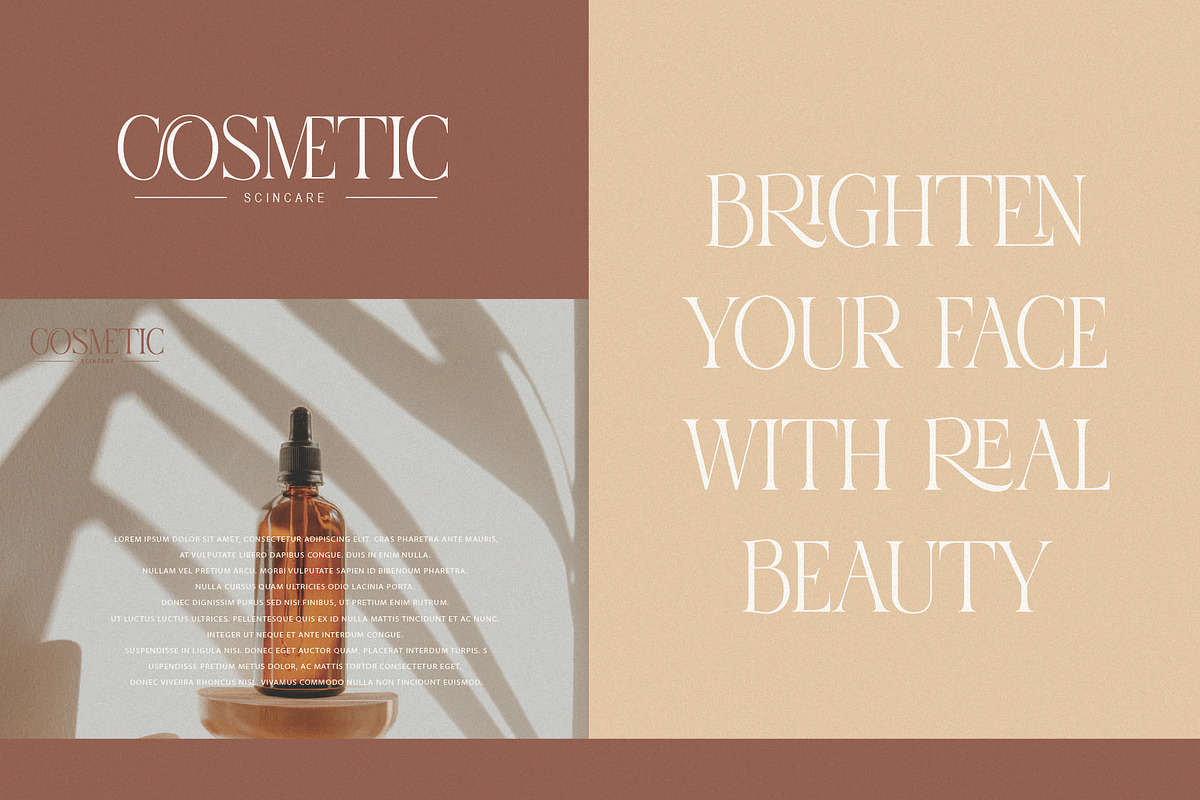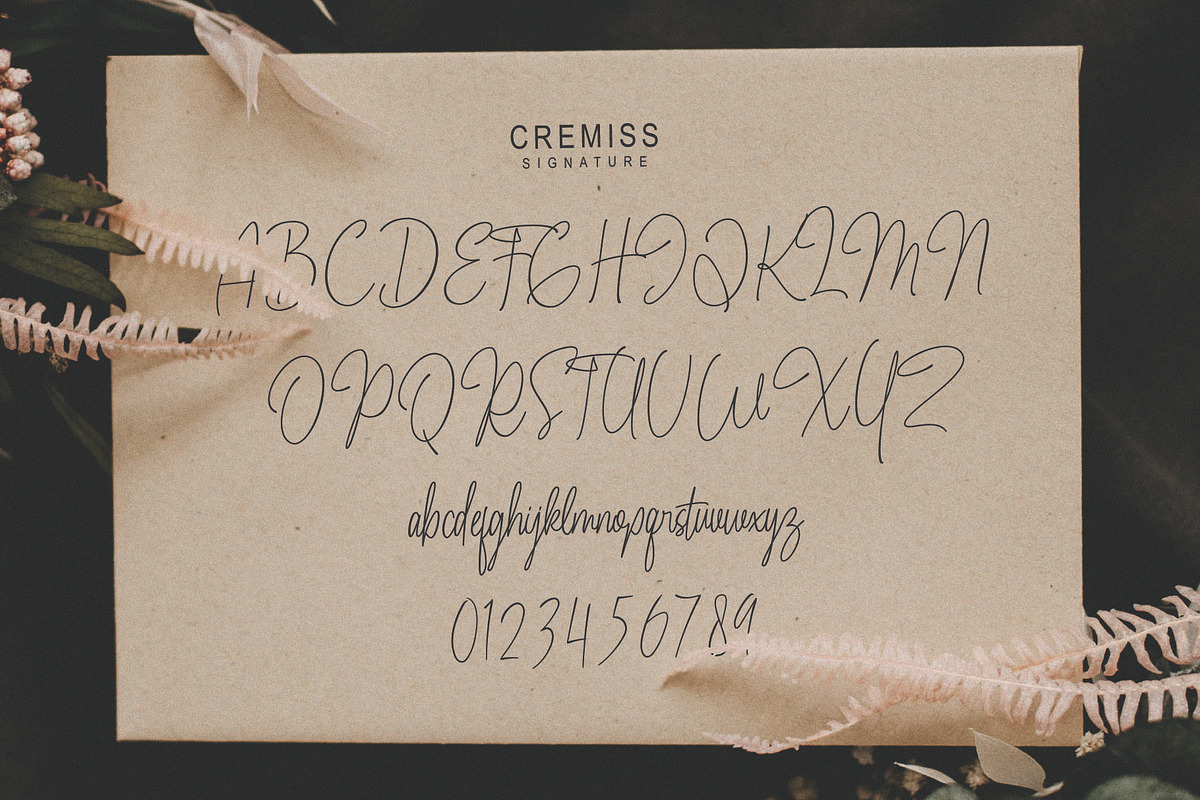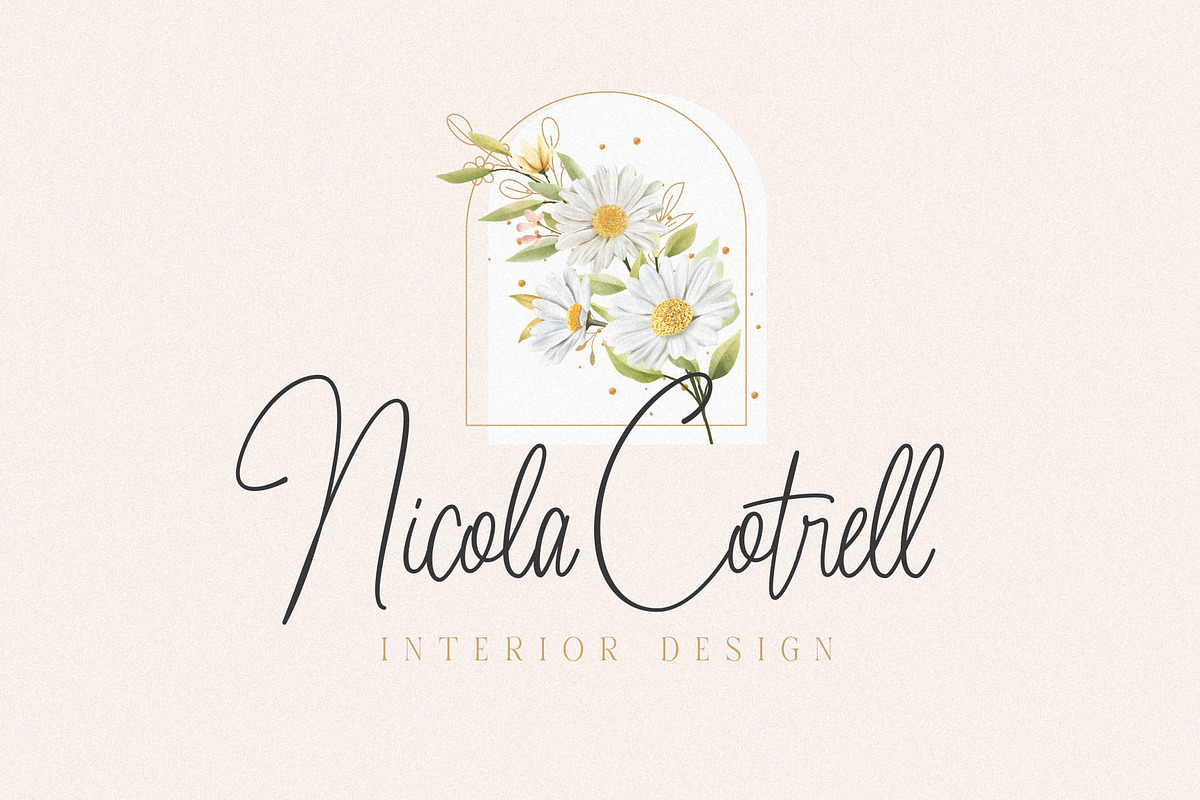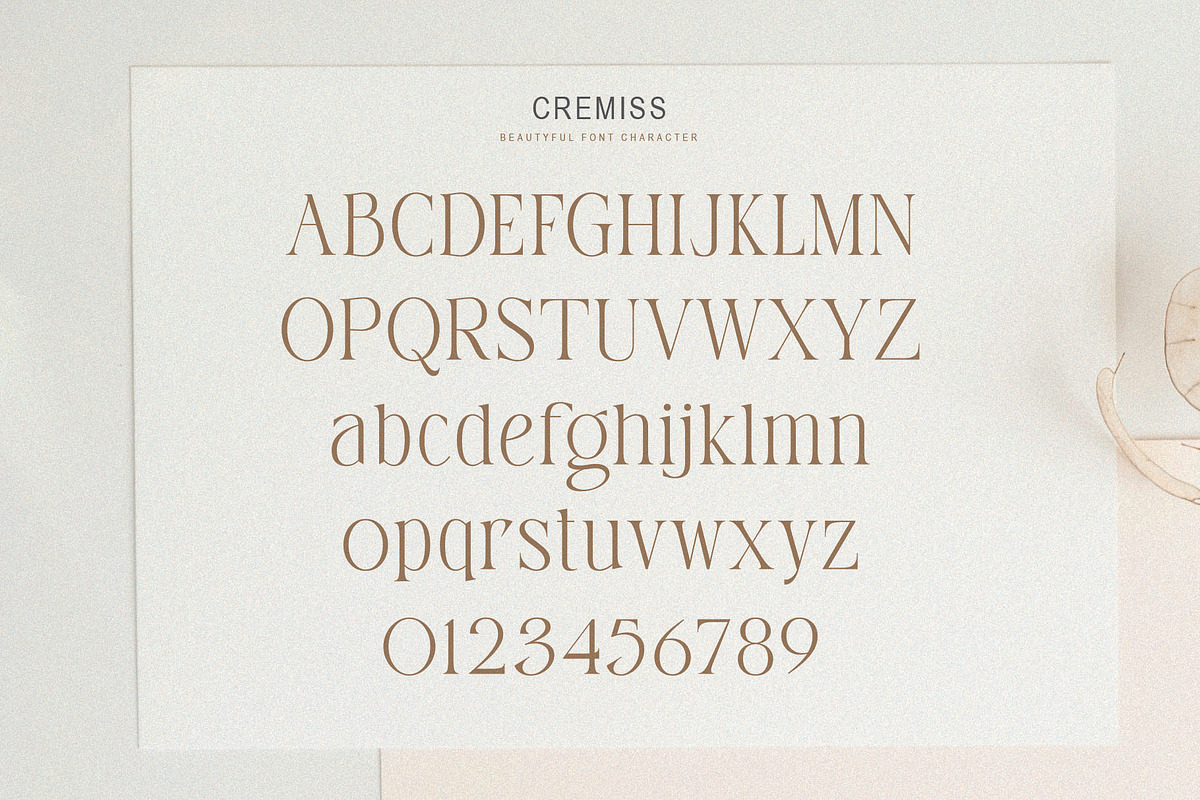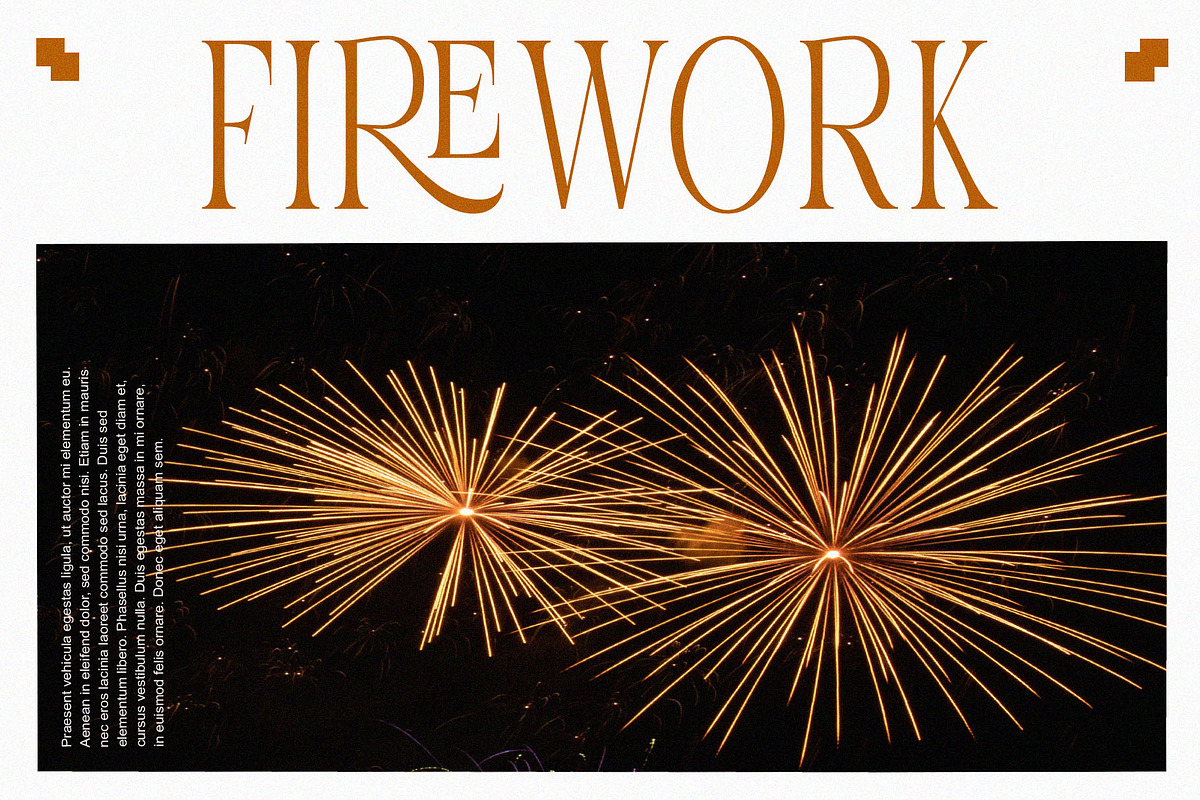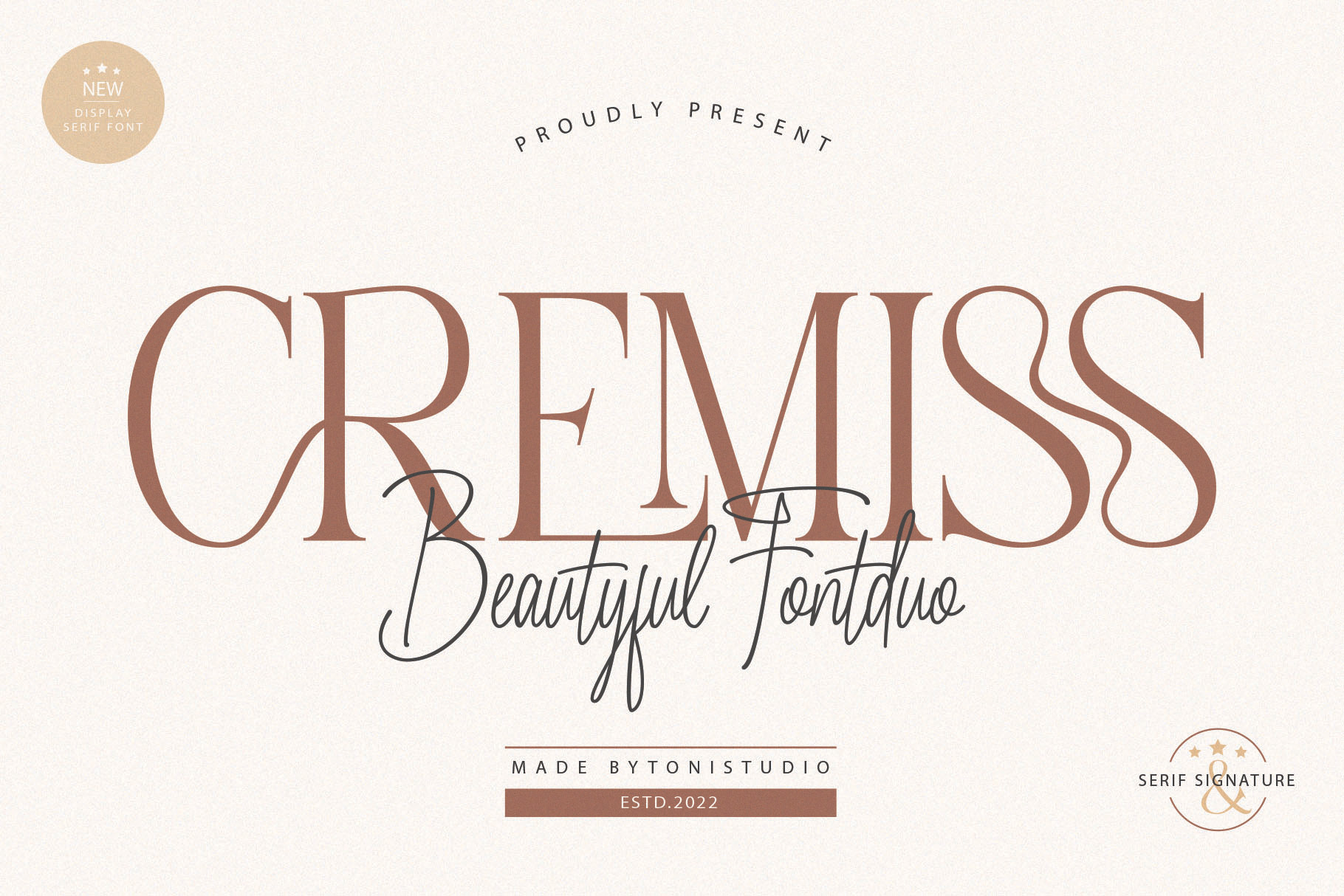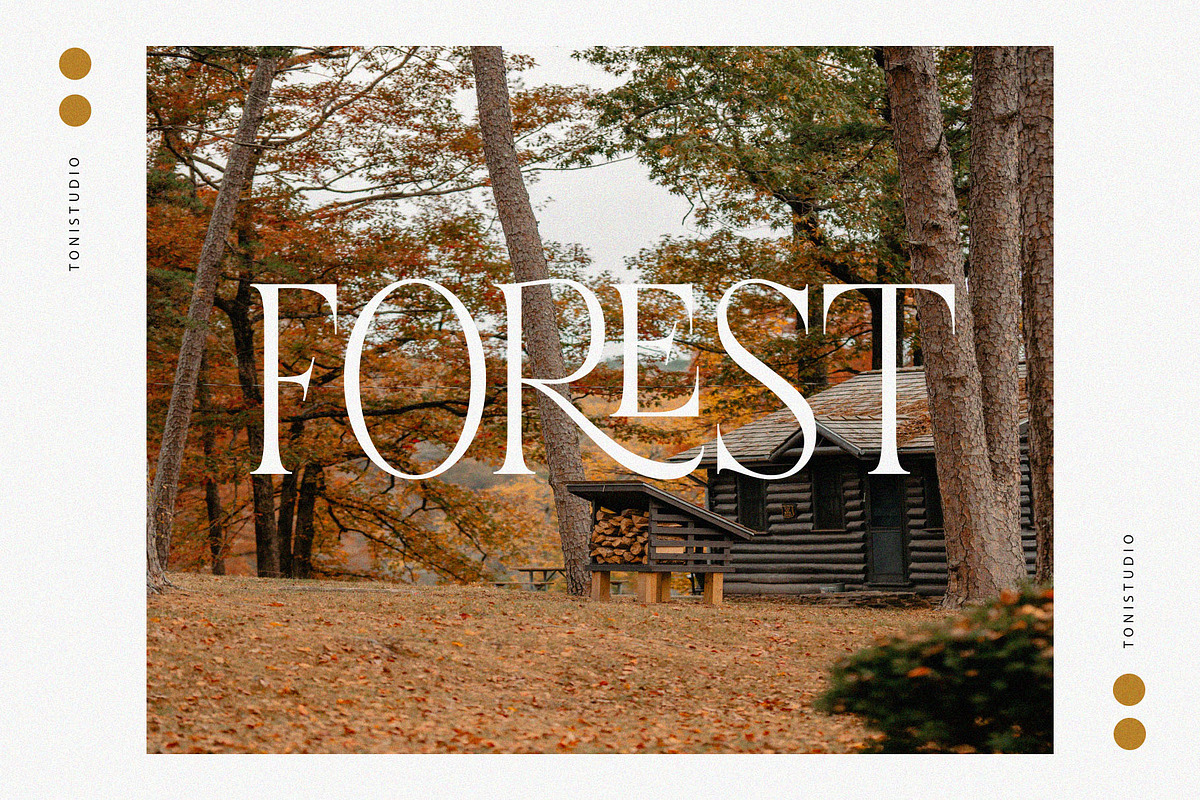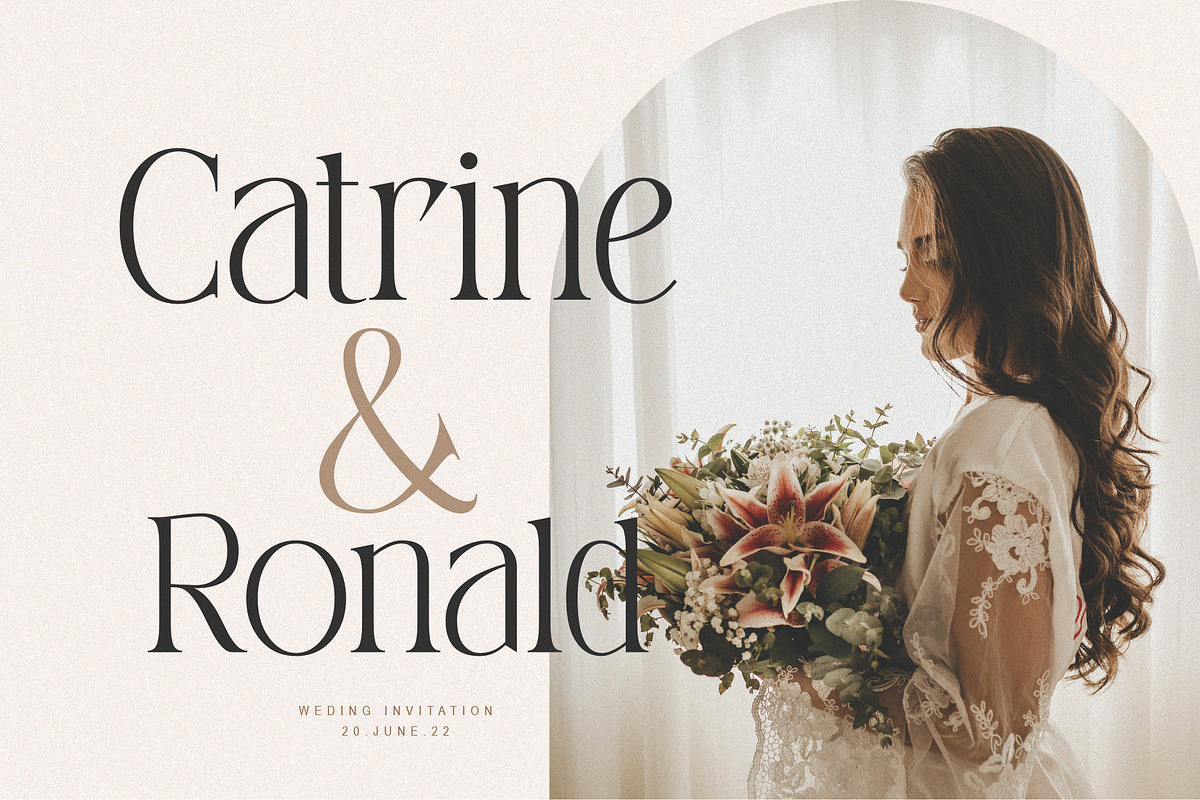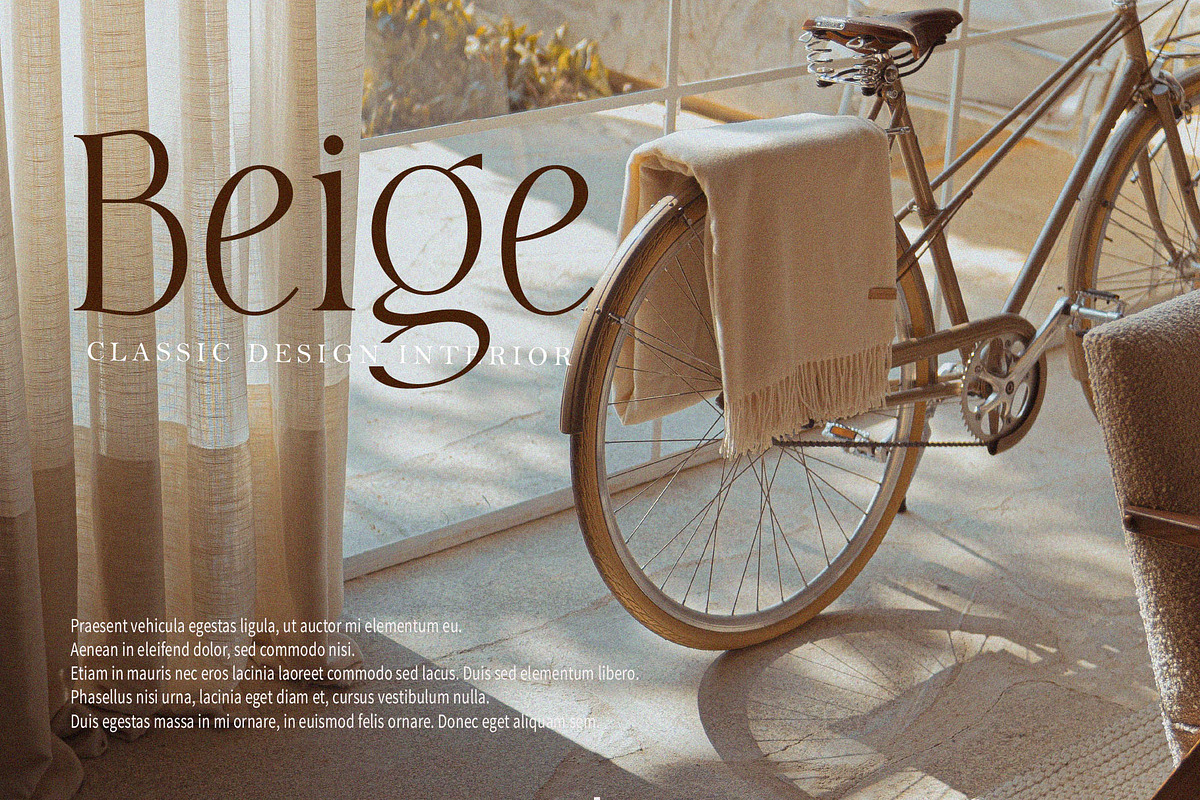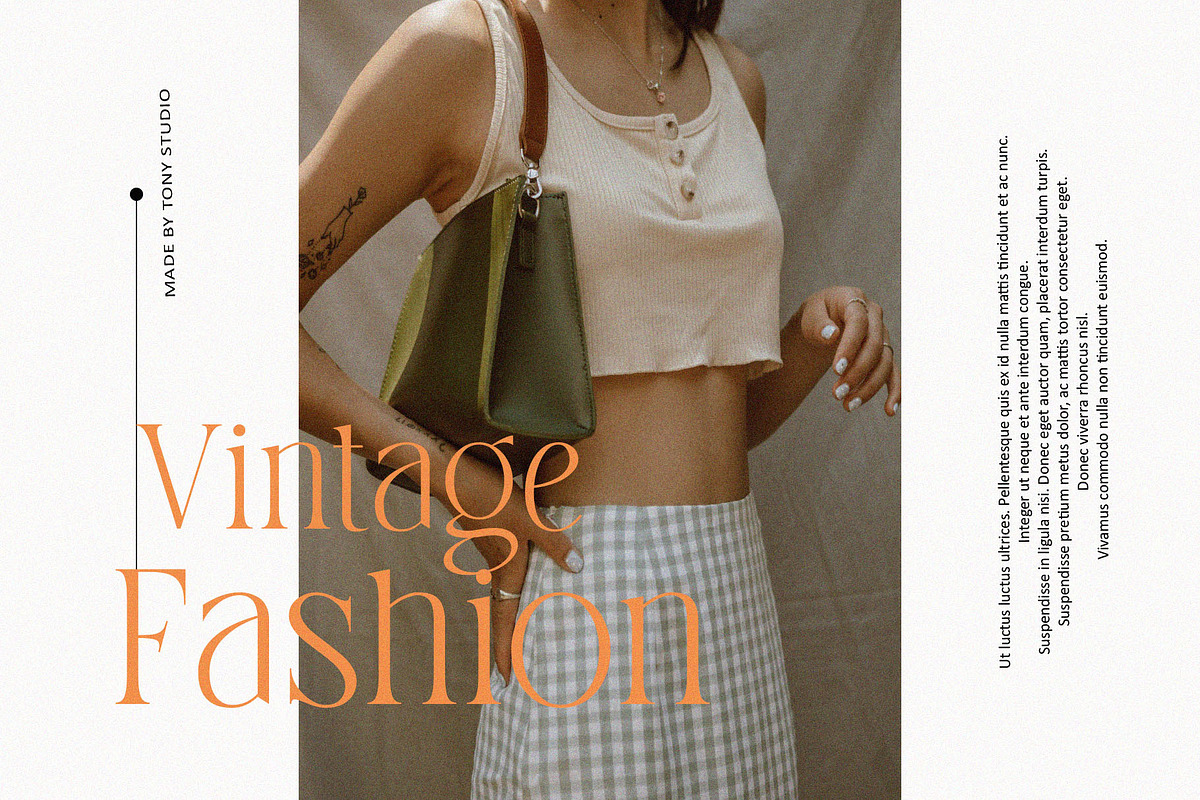
CREMISS || Font Duo
Introducing CREMISS Font Duo, a serif Ligature that blends with a script signature!!! CREMISS is a modern and elegant serif font. This font is modern and nostalgic and is perfect for logos, magazines, social media. It fits together and is ready to go together for your next design! For those of you who need an elegant, stylish, classy, chic and modern touch to your designs, this font is made for you!
CREMISS Font Duo is built with OpenType features and includes ligatures, alternatives, numbers, punctuation, and also supports other languages.